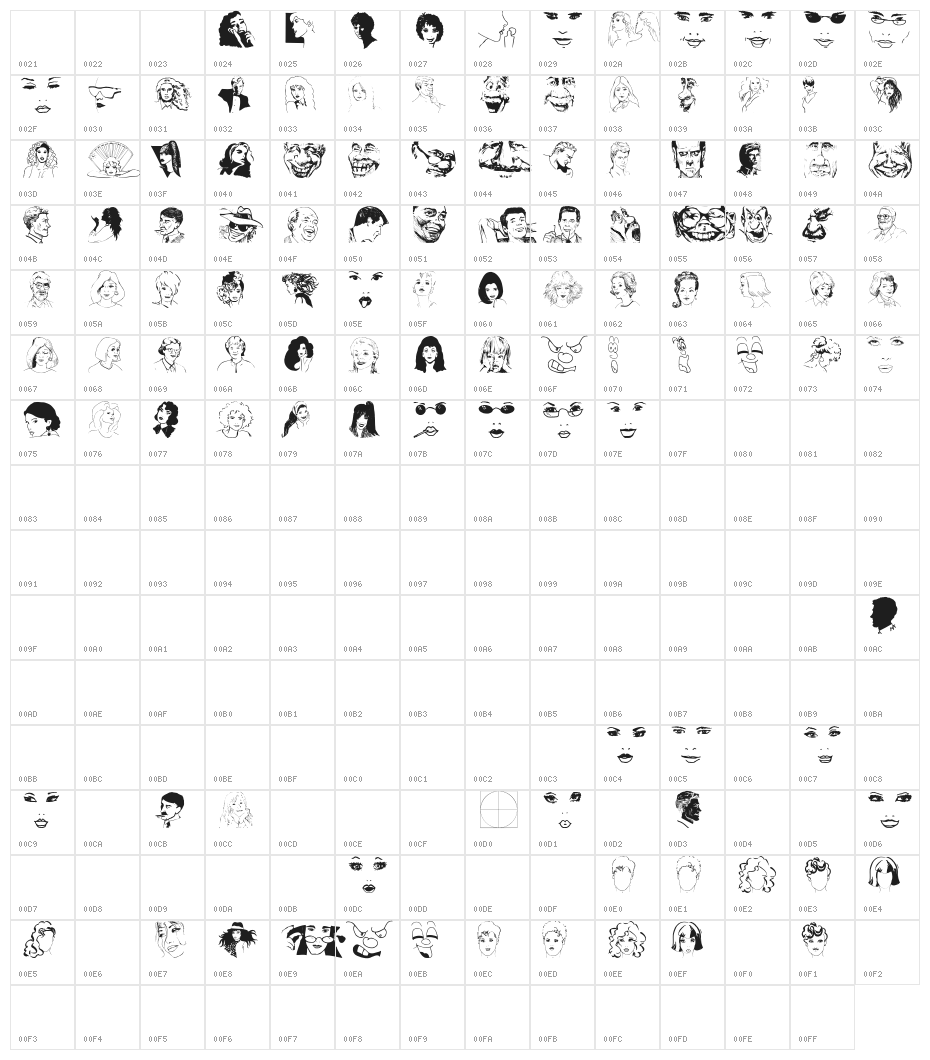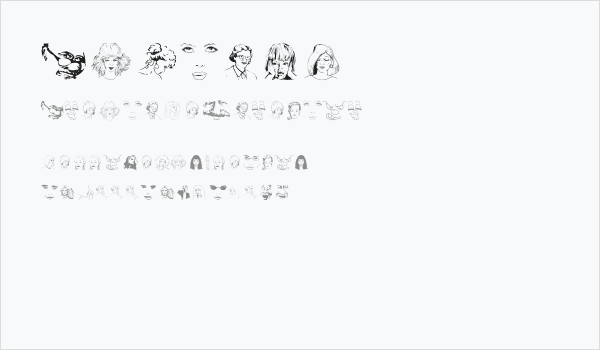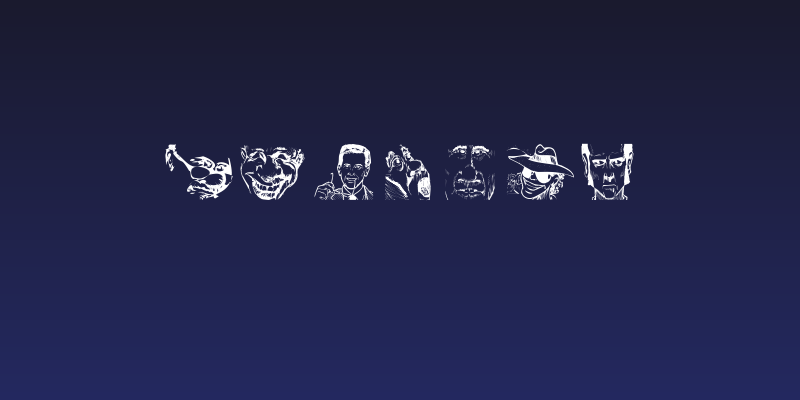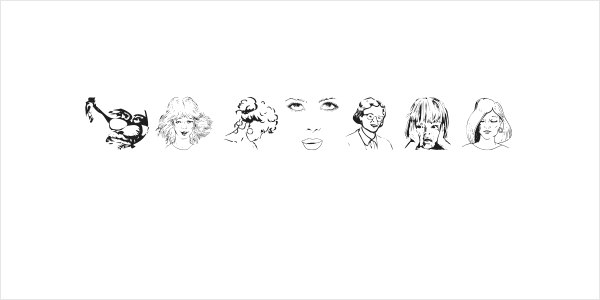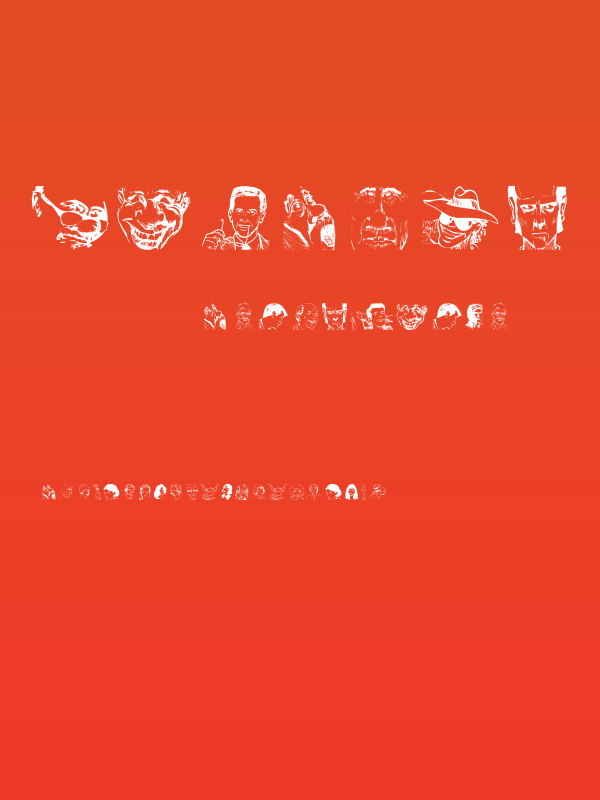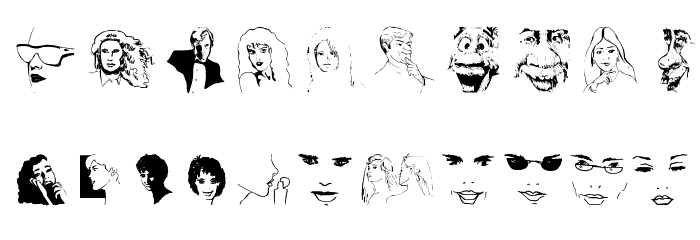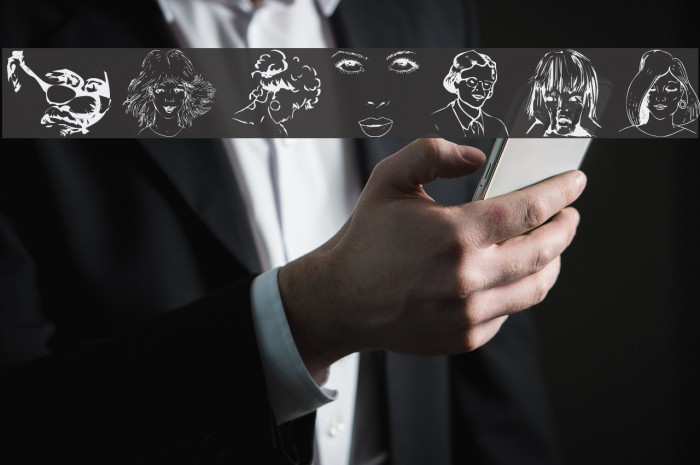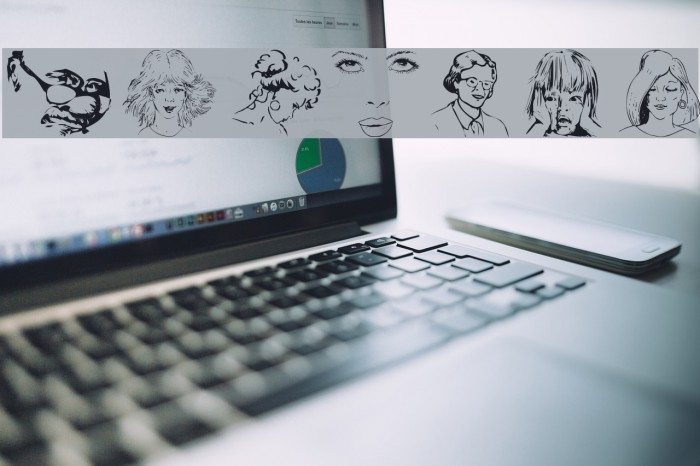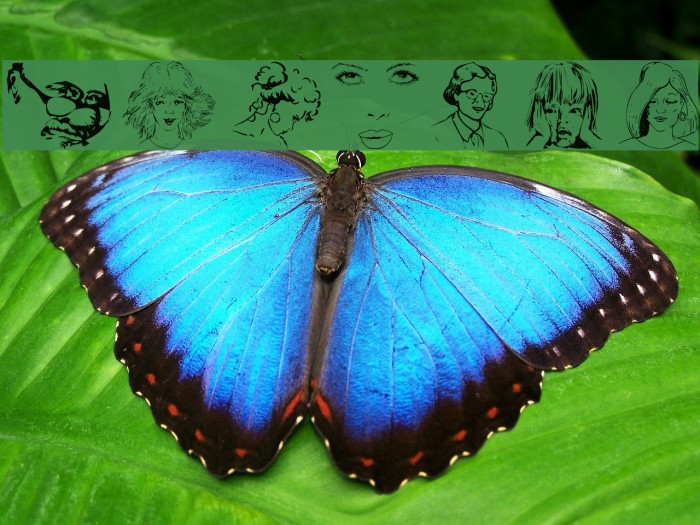
Casting Font
Casting Description
A decorative display font composed entirely of illustrated faces and caricatures, each glyph representing a unique portrait or facial expression in a hand-drawn, sketch-like style. The characters are highly detailed, with a mix of realistic and exaggerated features, making each letter or symbol visually distinct and expressive.
| Overall Style | Decorative, Artistic, Playful |
| Use Case | Headlines, Logos, Posters, Artistic projects |
| Proposed Projects | Posters, album covers, editorial illustrations, creative branding, event invitations, art projects. |